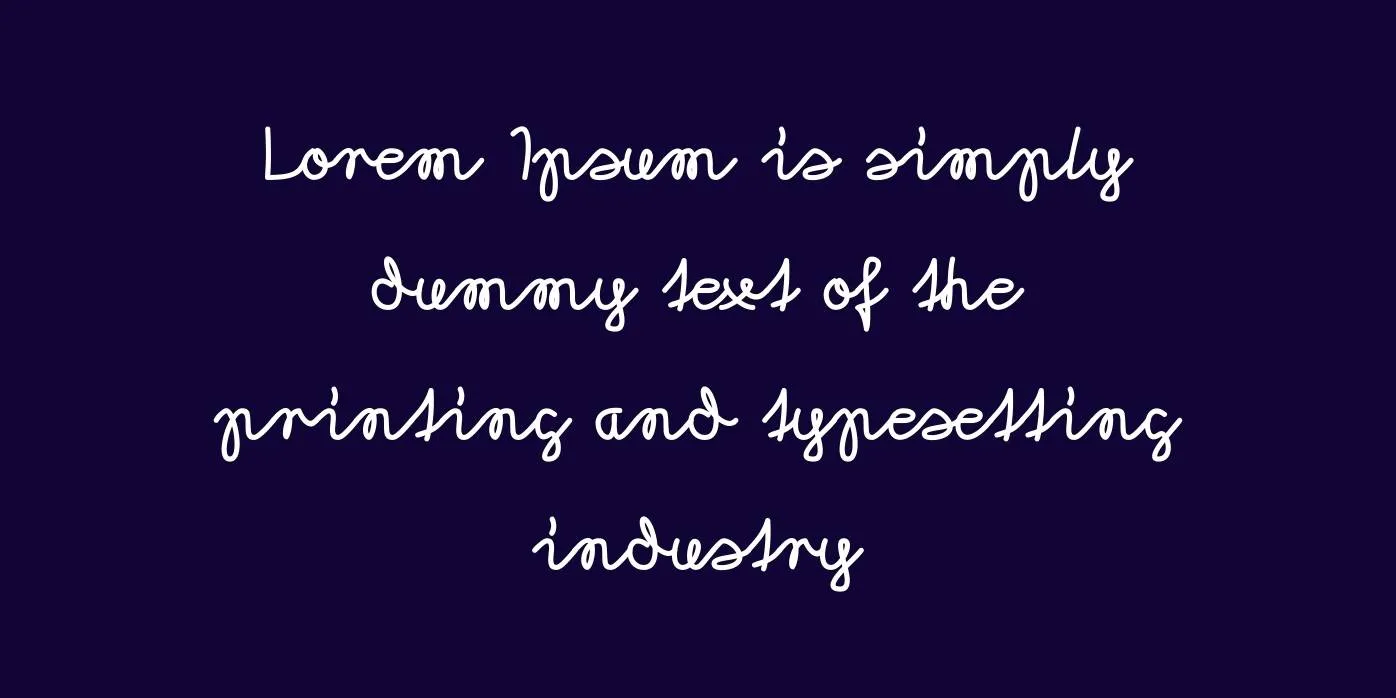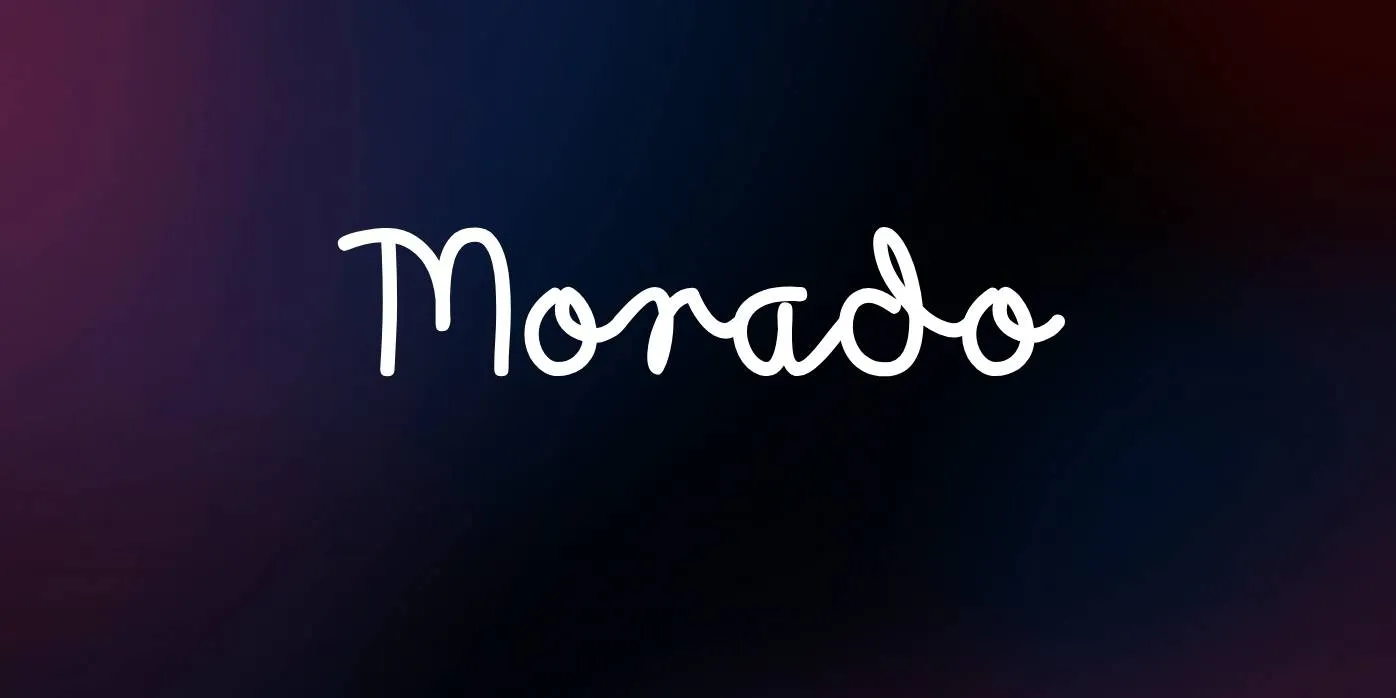
Morado Font
Peter Wiegel designed this font. Morado Font is a handwritten typeface that contains four different styles. Its quality varies due to different styles. This font comes in two formats which are Opentype and Truetype format.
The characters of this font are stylish which decreases its ability to read but it increases the pretty look of the text. The characters of this texture contains numbers, special letters, capital letters, and lowercase letters. The dearest font usually works with this texture to get pretty styles. This pair increases the beauty and readability of the text.